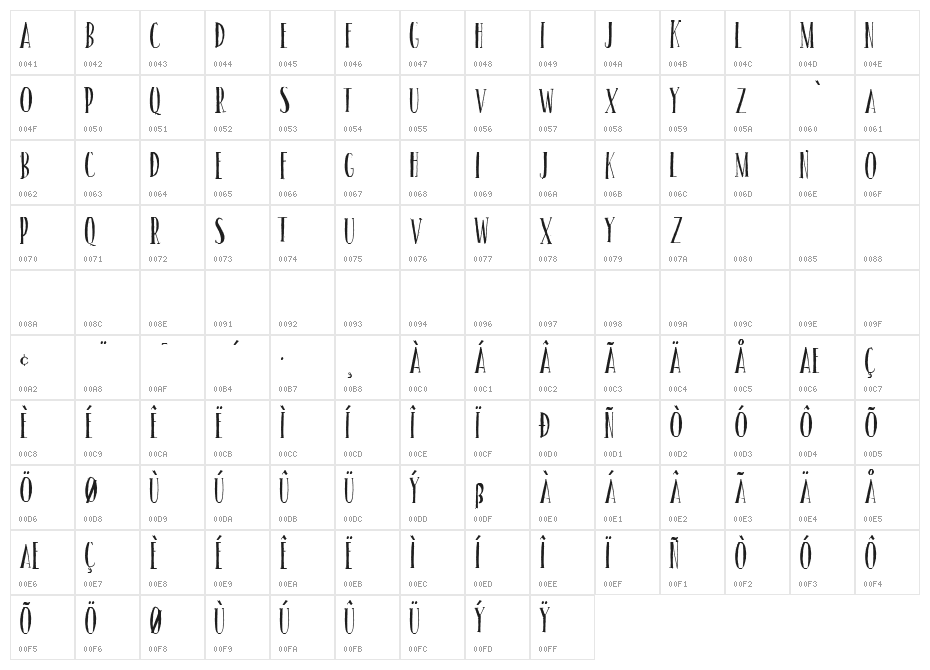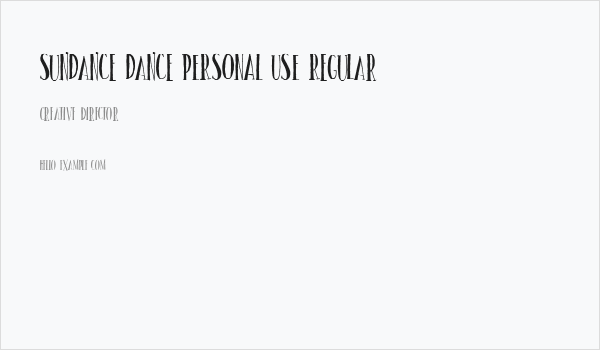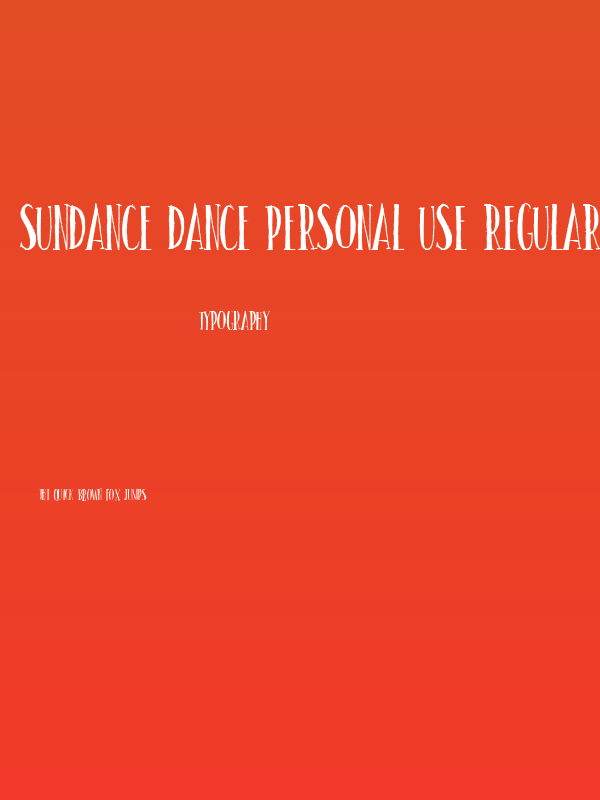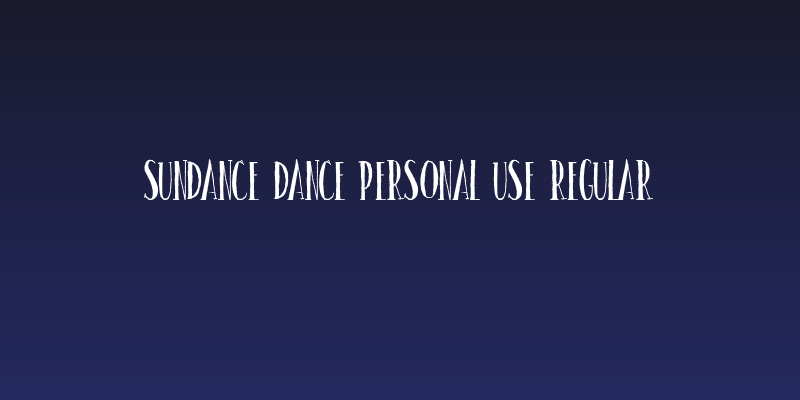
Sundance dance PERSONAL USE Regular Font
Sundance dance PERSONAL USE Regular Description
This font features a hand-drawn, brush-like style with a rustic and artistic flair. The characters are elongated and slightly irregular, giving them a dynamic and lively appearance. The strokes vary in thickness, adding a sense of movement and energy. The uppercase letters are tall and narrow, while the lowercase letters maintain a consistent style, complementing the uppercase set. The numbers and special characters follow the same artistic theme, making the font versatile for creative projects. Its unique style is reminiscent of vintage signage or artistic posters, making it suitable for designs that require a personal touch.
| Proposed Projects | Ideal for posters, artistic invitations, branding projects, and creative packaging designs. |